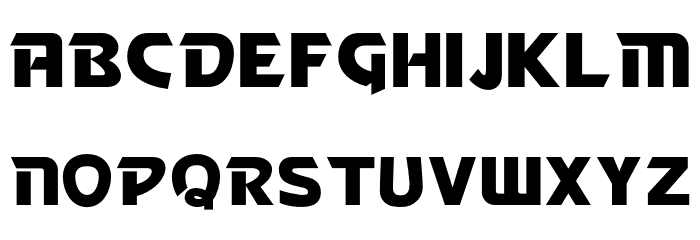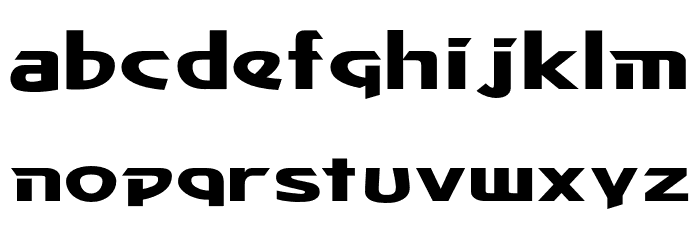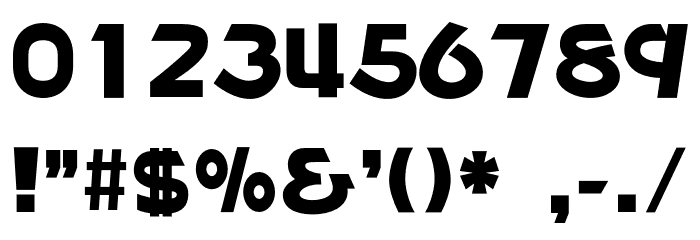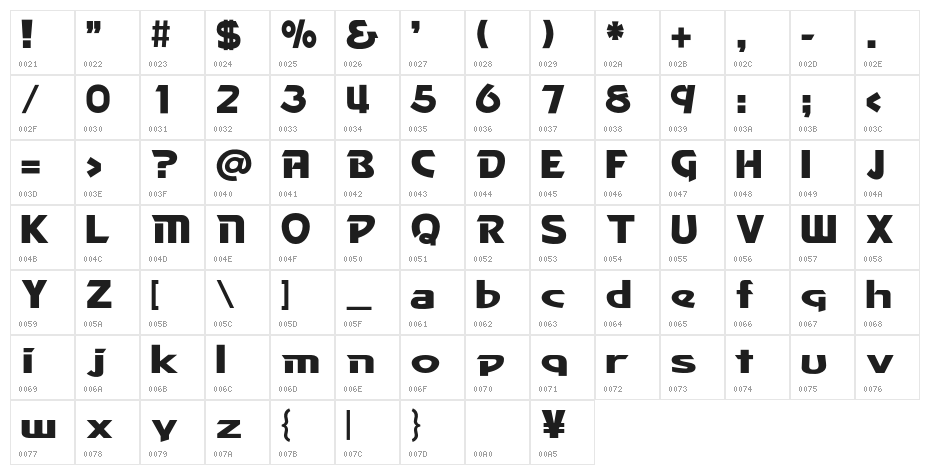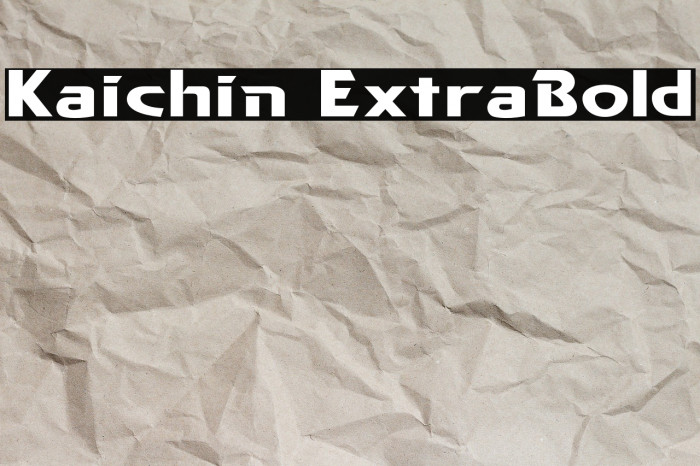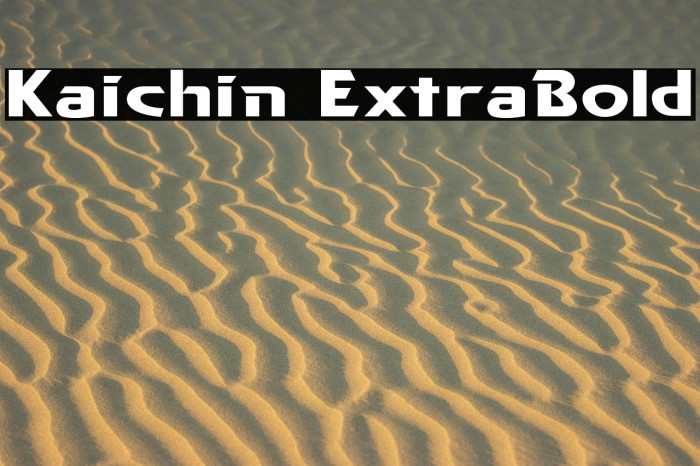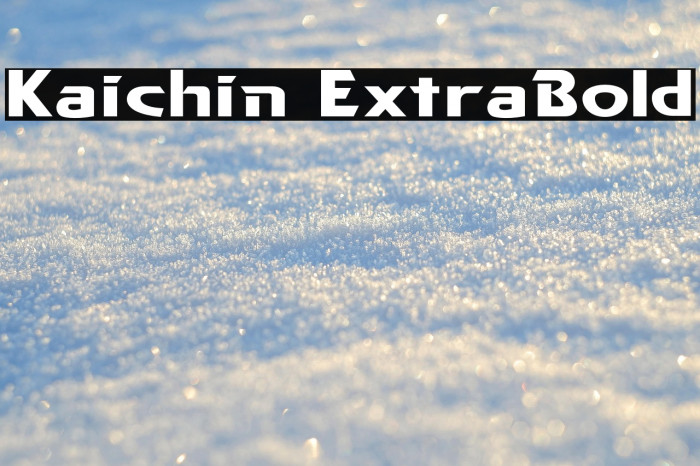
Kaichin ExtraBold Font
This font exhibits a bold and striking appearance, characterized by its thick, angular strokes and geometric shapes. The uppercase letters are particularly prominent, with sharp edges and a block-like structure that conveys strength and modernity. The lowercase letters maintain a consistent style, offering a cohesive look across different text sizes. Numbers and special characters are equally robust, ensuring readability and impact. The font's design is both contemporary and versatile, making it suitable for a variety of applications where a strong visual presence is desired.
A bold, geometric font with sharp, angular strokes and a modern aesthetic.
- Proposed Projects: Ideal for branding, headlines, posters, and any design project requiring a bold statement.